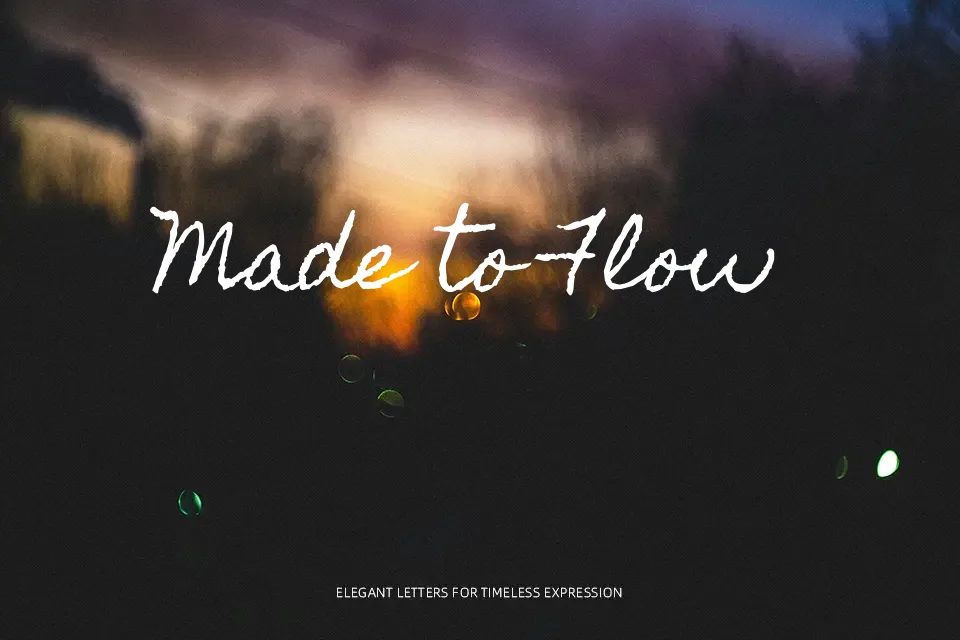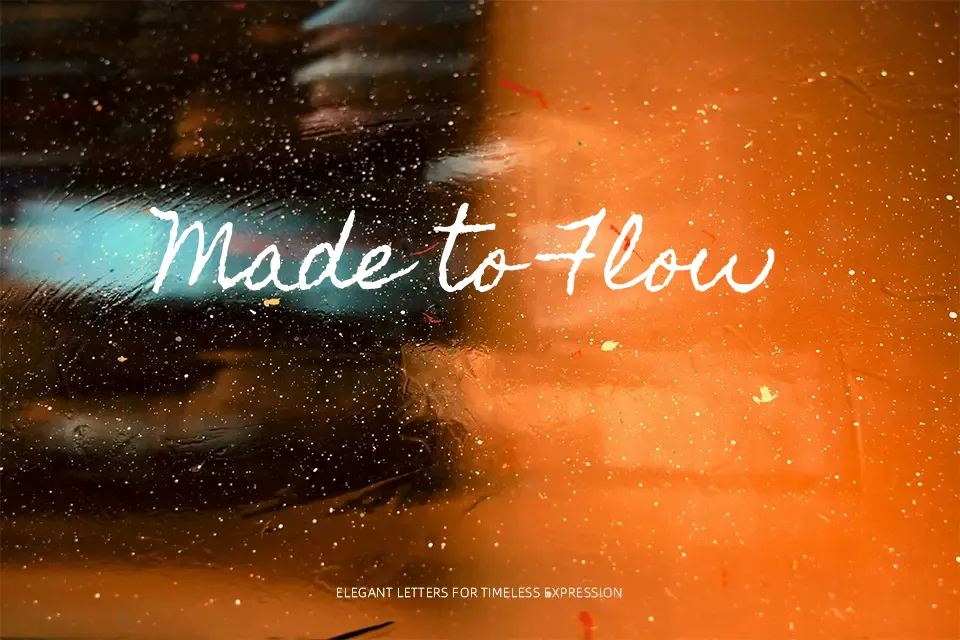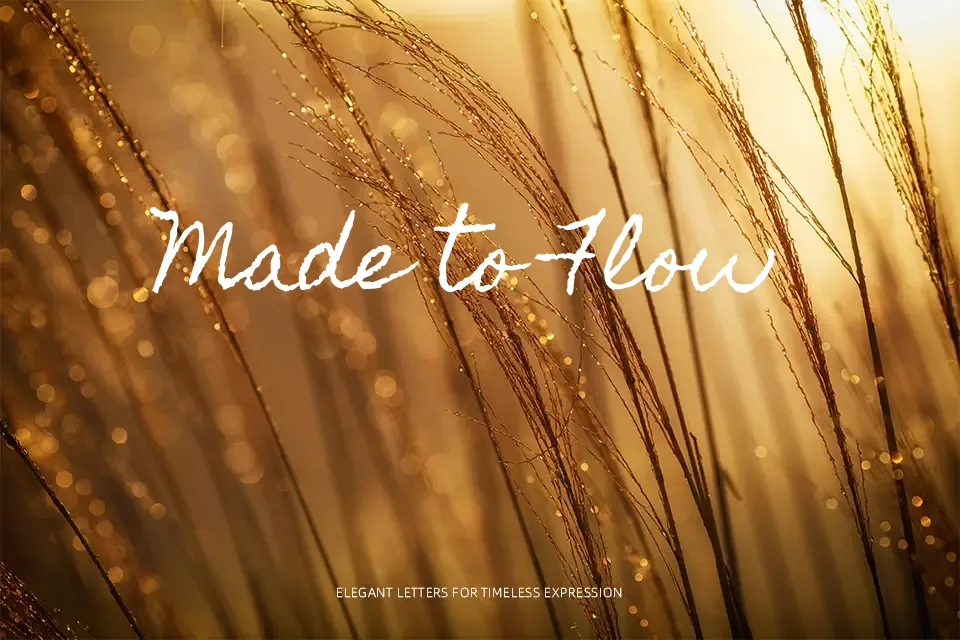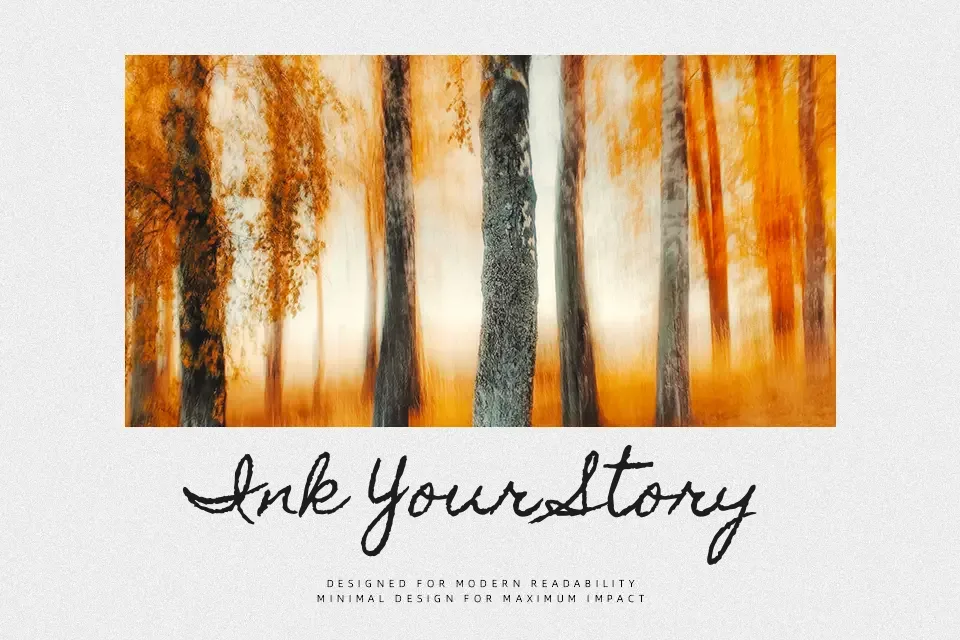
Homemade Apple Font
Designed by Font Diner
Homemade Apple is an inviting, handwritten script font that authentically captures the charm of natural cursive. Its design features slightly irregular, fluid strokes with connecting letters and a modest slant, perfectly mimicking the genuine imperfections of human handwriting. The subtle variations in stroke thickness give this typeface a warm, approachable, and casually elegant style.
This font brings a wonderful personal touch to designs needing an intimate vibe rather than a corporate feel. It provides a lovely aesthetic for organic product packaging, heartfelt greeting cards, and rustic cafe menus. However, due to its whimsical and flowing nature, Homemade Apple struggles with legibility at small sizes and should be avoided for dense body text or highly formal business reports.
– rustic cafe menus
– heartfelt greeting cards
– organic product packaging
– personal blog headers
– dense body paragraphs
– formal business reports
– small interface text
Perfect for branding, invitation, and packaging, with a creative and handwritten style.